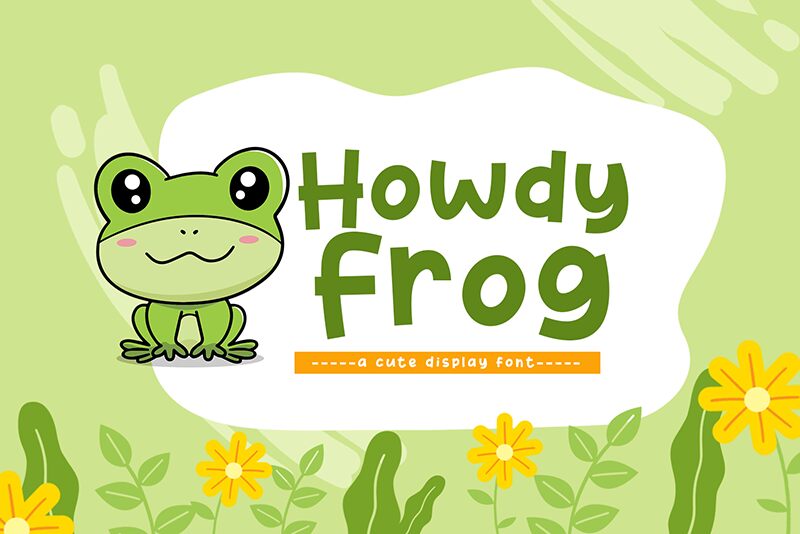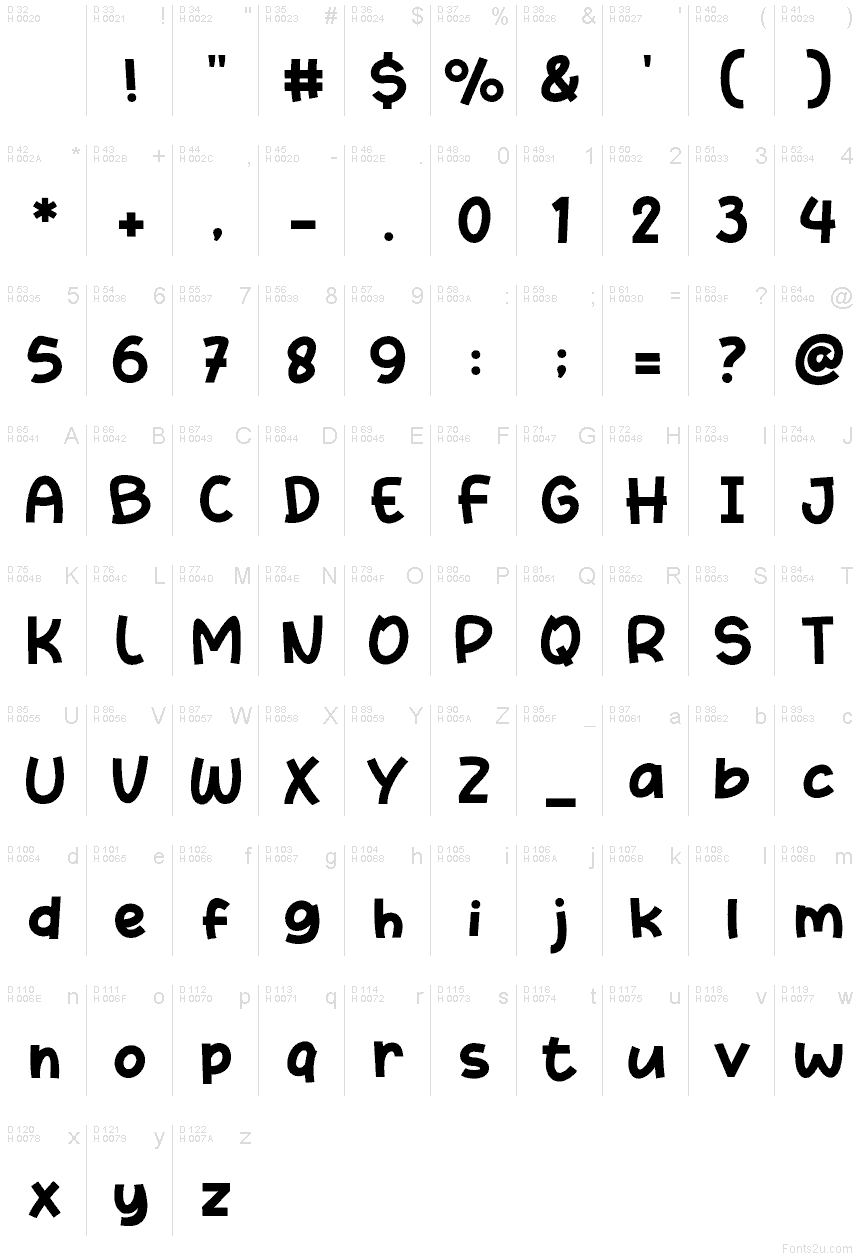
Howdy Frog
Howdy Frog font by Khurasan is a display cartoon font that brings playful, friendly, and all around easy-going vibes to the table. The casual font design has a chunky and blocky appearance shown in a unique style that doesn’t resemble any other designs out there. Get creative with this amazing tool when designing branding or print projects.